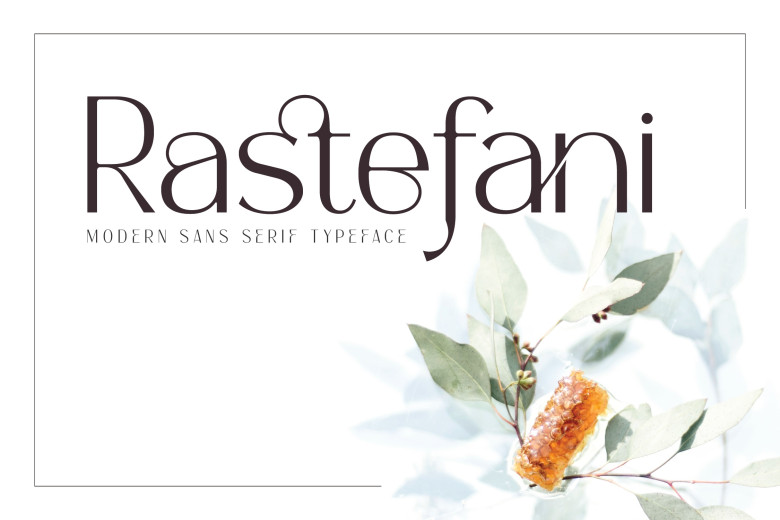
Rastefani Font
Rastefani is an elegant sans serif font designed to add individuality in various applications, such as wedding invitations, thank you cards, greeting card logos, etc. Additionally, PUA encoding makes accessing symbols and ligatures even simpler!
Rastefani Sans Serif Font